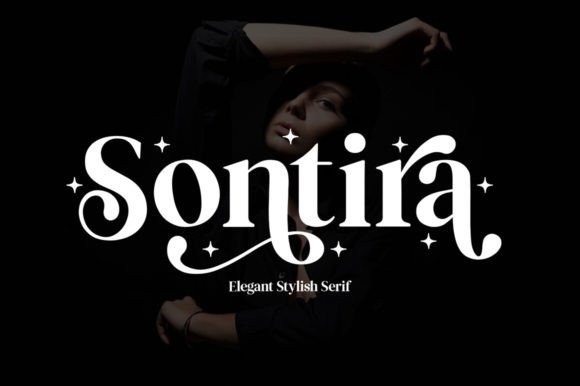
Introducing Sontira Font, the epitome of elegance and sophistication in the world of typography. Crafted by the renowned BrandType, this magnificent serif font is specifically designed for creating mesmerizing beauty logos. With its exquisite details and captivating charm, Sontira Font is guaranteed to leave a lasting impression on your audience.
Step into a realm of sheer beauty and grace as Sontira Font effortlessly combines classic elements with a touch of modernity. Its unique feel and stunning impact make it the perfect choice for those seeking to elevate their design projects to new heights. Whether you're working on a logo for a luxurious salon, a high-end cosmetics brand, or a fashion-forward boutique, Sontira Font will effortlessly enhance your creative vision.
Unlock endless possibilities with Sontira Font's PUA encoding feature, granting you easy access to a vast array of glyphs and ligatures. Let your creativity flow as you effortlessly customize and personalize your designs, ensuring every detail is a true reflection of your brand's identity. Bring your beauty logo to life with the perfect balance of elegance and sophistication that only Sontira Font can provide.
Indulge in the sheer pleasure of working with a font that exudes luxury and refinement. Sontira Font's meticulously crafted serifs and impeccable letterforms will captivate your audience, leaving them in awe of your design prowess. From business cards to websites, packaging to social media graphics, Sontira Font will effortlessly elevate your brand's visual presence and make a lasting impact.
Let Sontira Font be your secret weapon in the pursuit of beauty and success. Unleash your creativity, stand out from the crowd, and make a statement that resonates with your target audience. With Sontira Font, your beauty logos will transcend the ordinary, becoming works of art that evoke emotion, inspire trust, and leave a lasting impression.
Don't settle for mediocrity when you can have excellence. Embrace the allure of Sontira Font and experience the transformative power it holds. Elevate your design projects, mesmerize your audience, and create beauty logos that truly reflect the essence of your brand. Take the first step towards greatness with Sontira Font today!